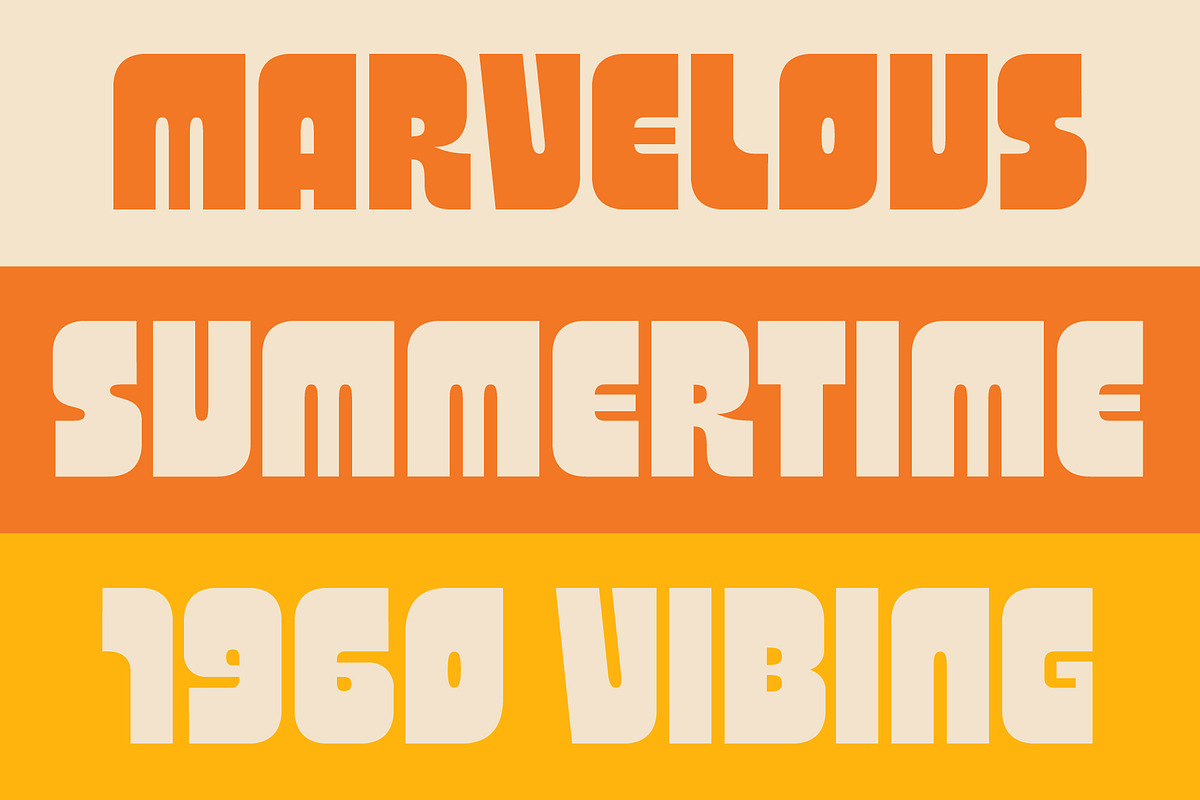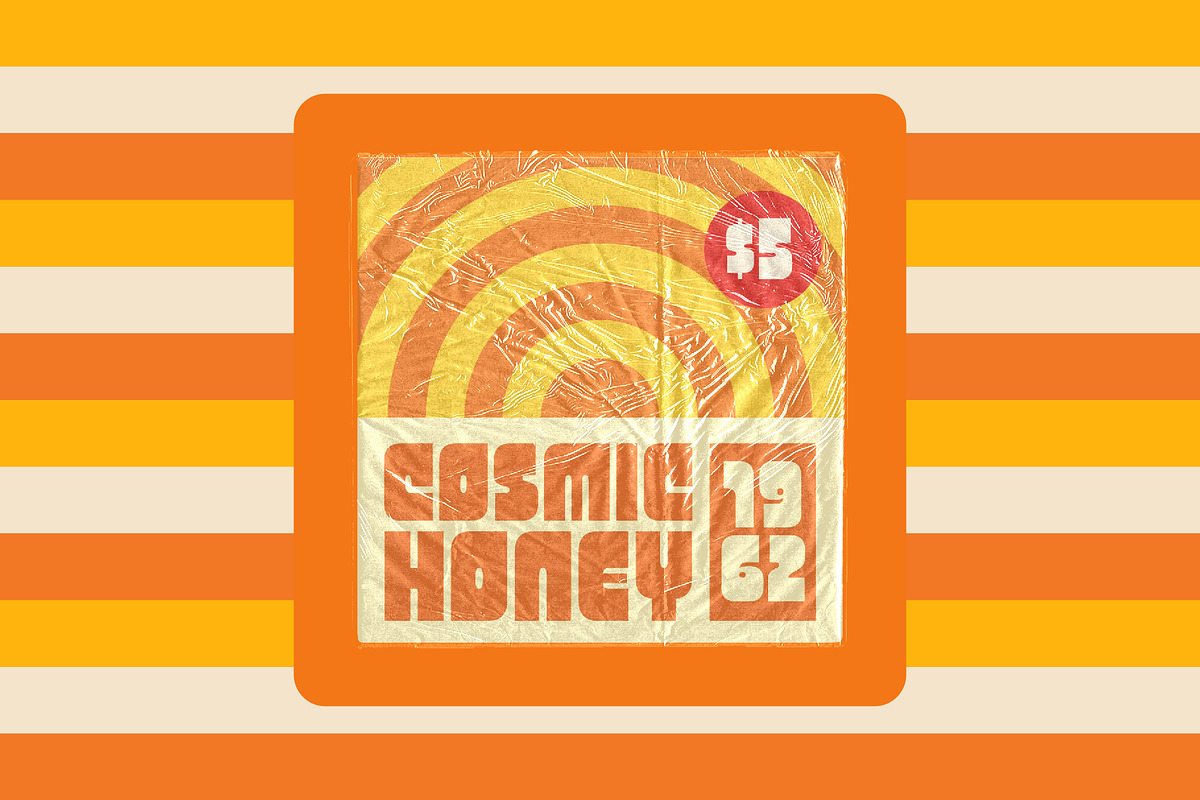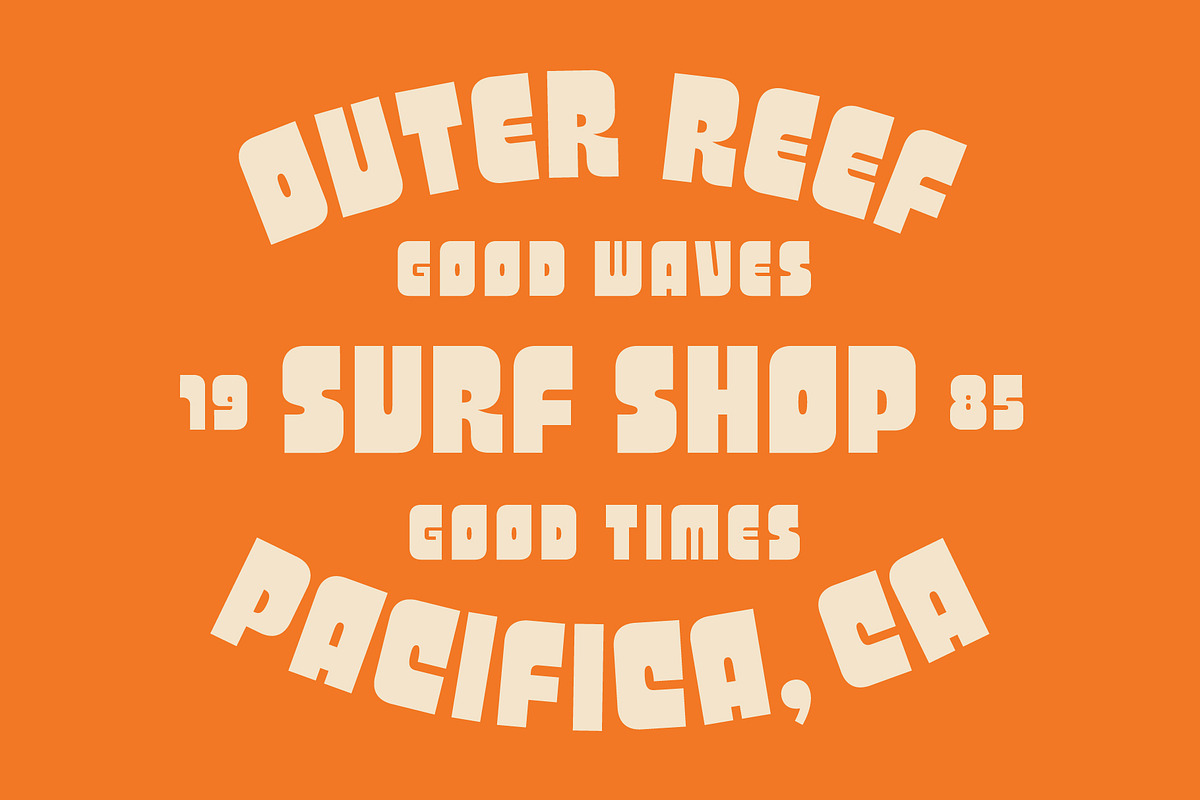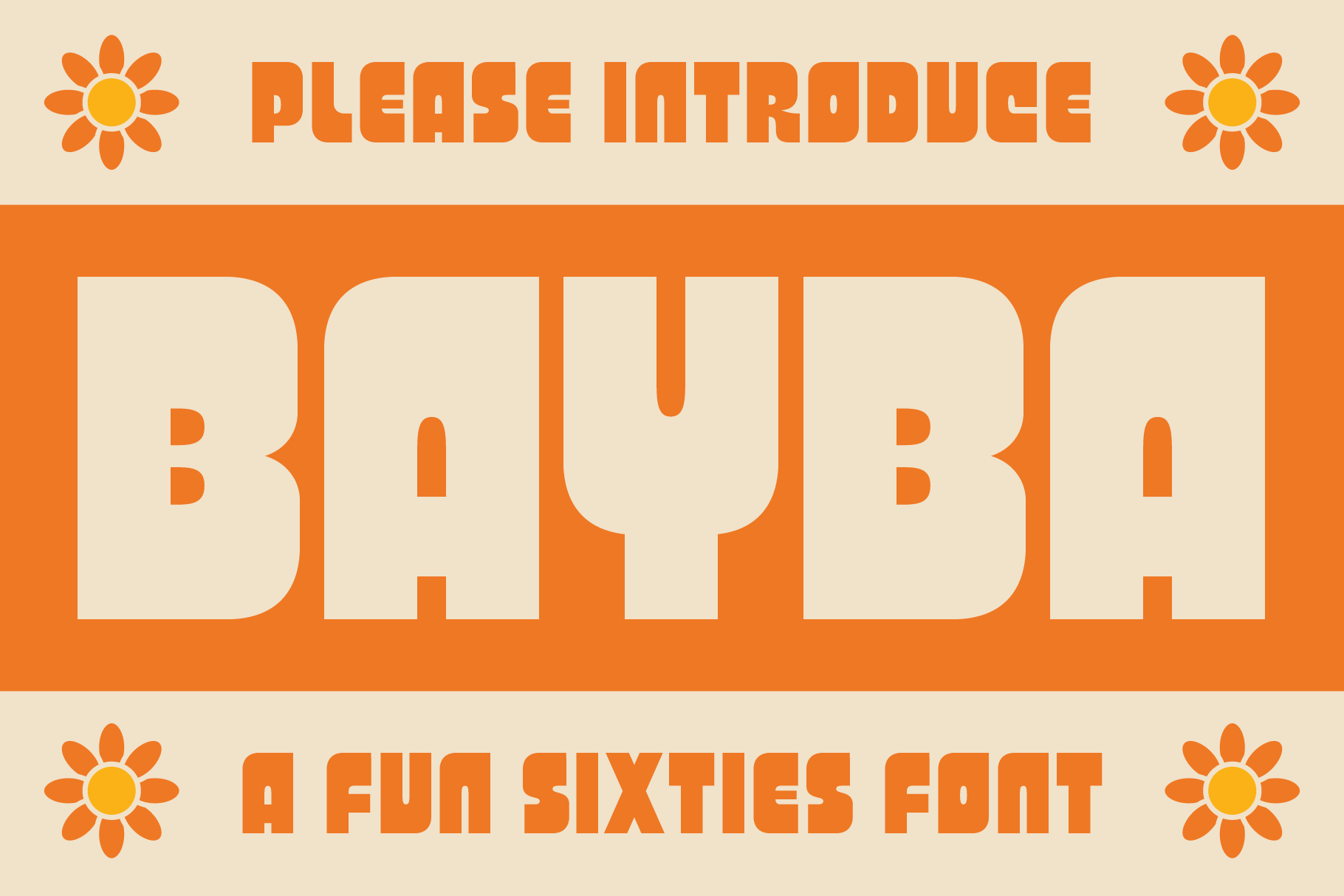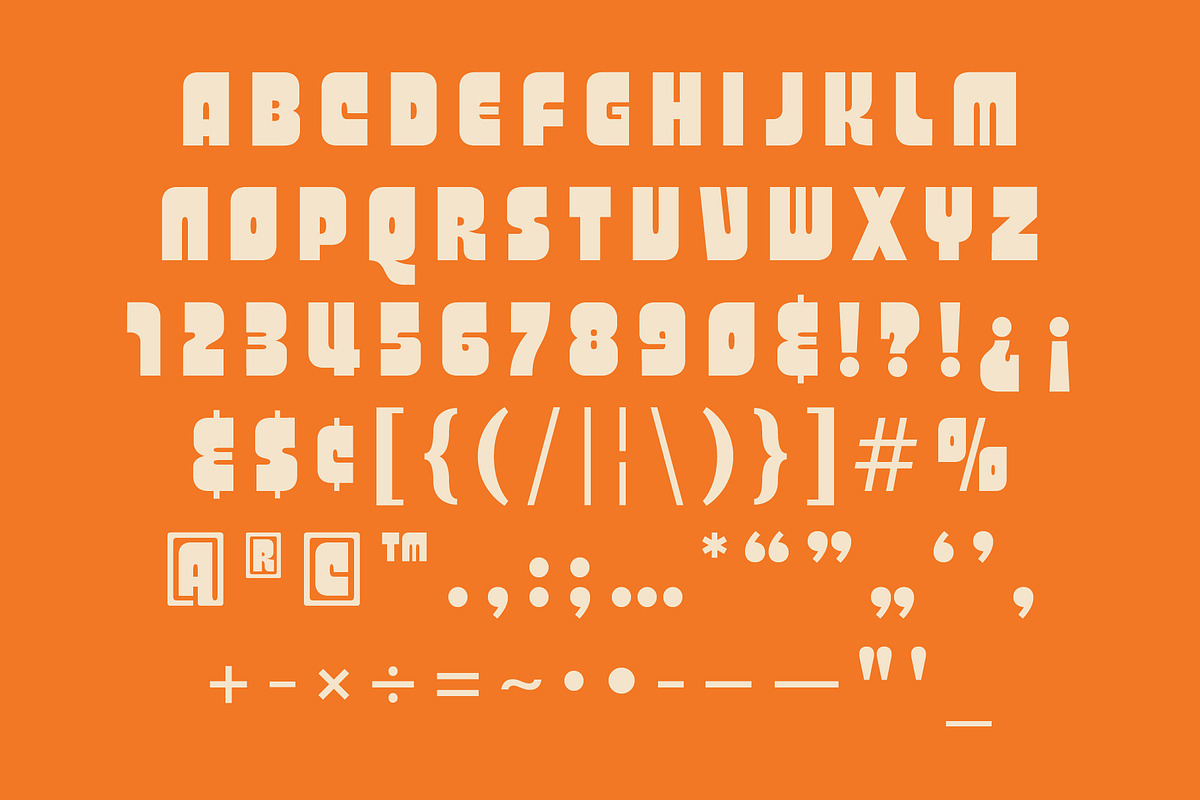
Bayba - A Fun 60s Font
Introducing my fourth font Bayba: a bold display inspired by love and the sixties. Featuring friendly rounded letterforms, Bayba gives a happy and fun feeling to projects! Bring joy to headlines, logos, packaging, posters, and more with Bayba!